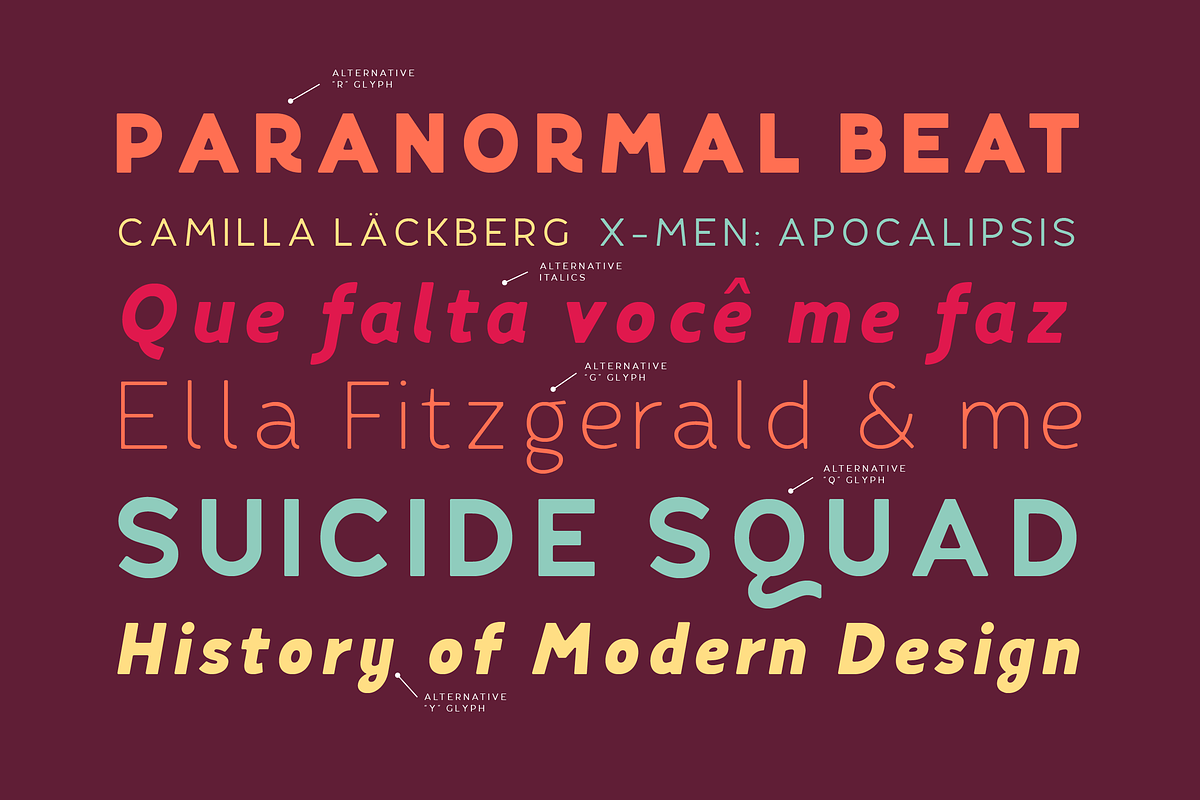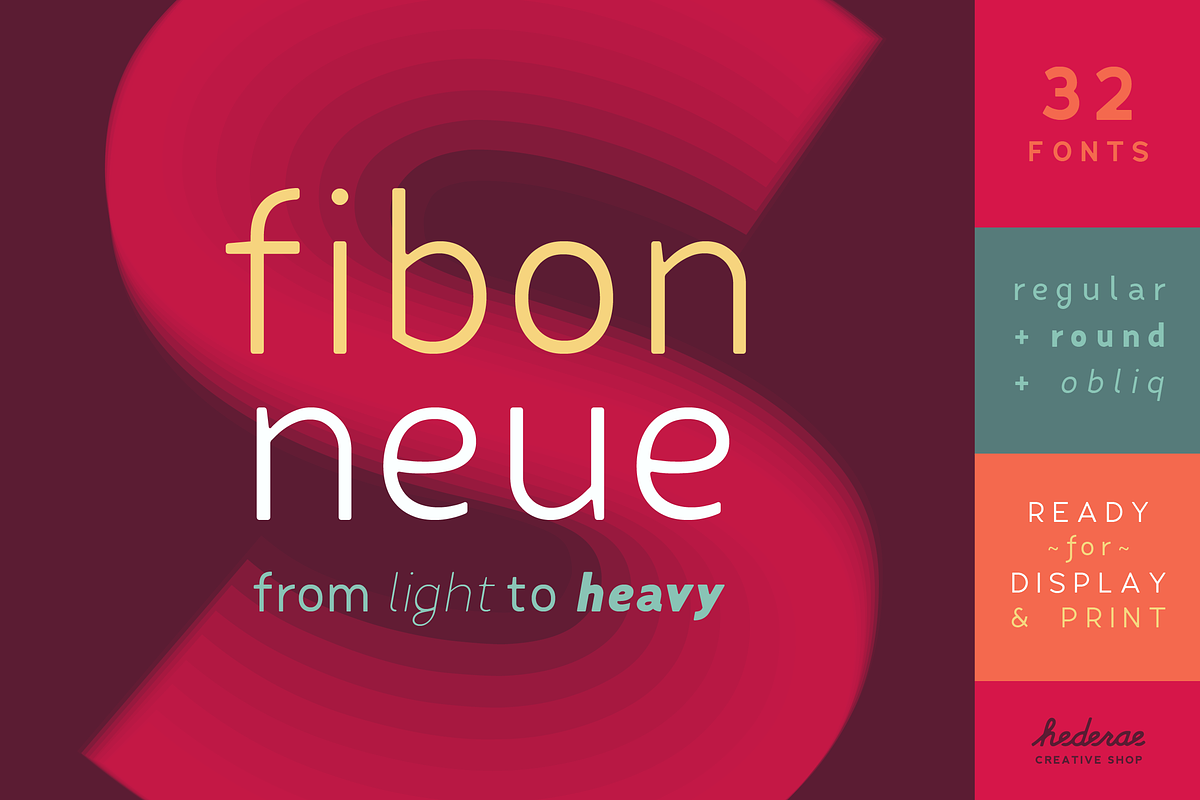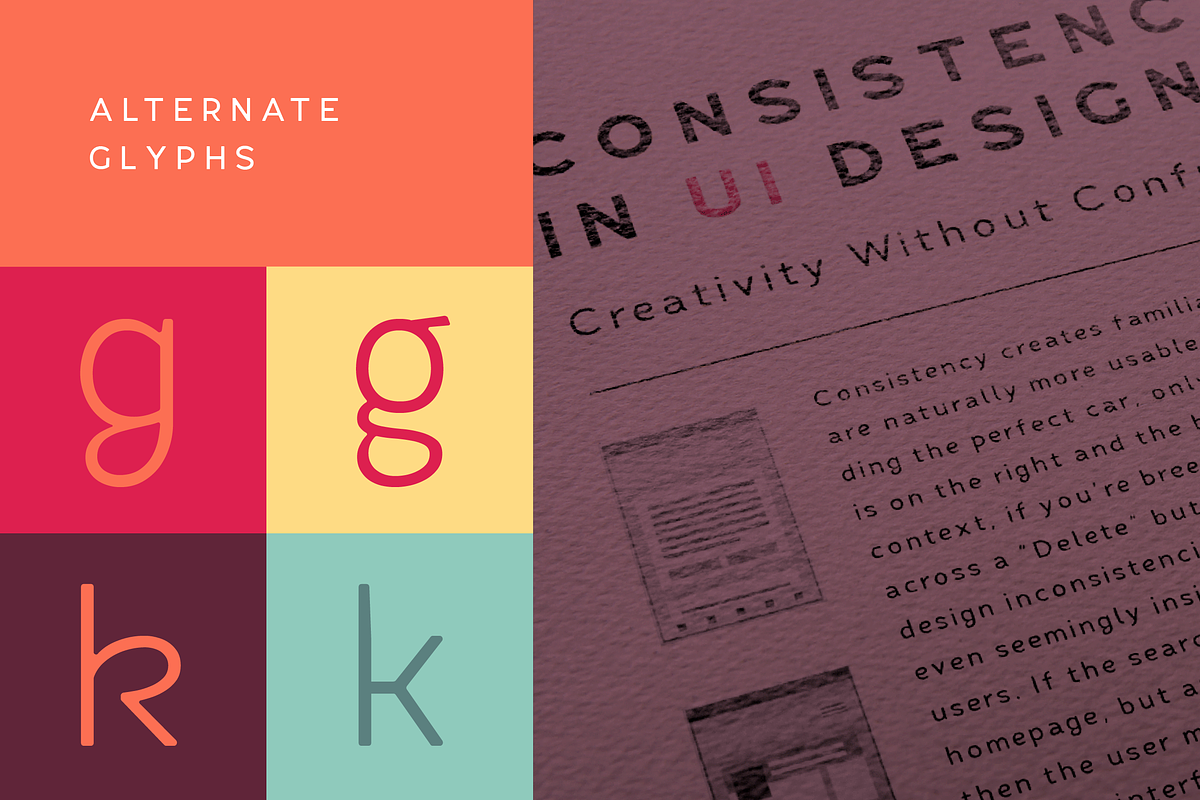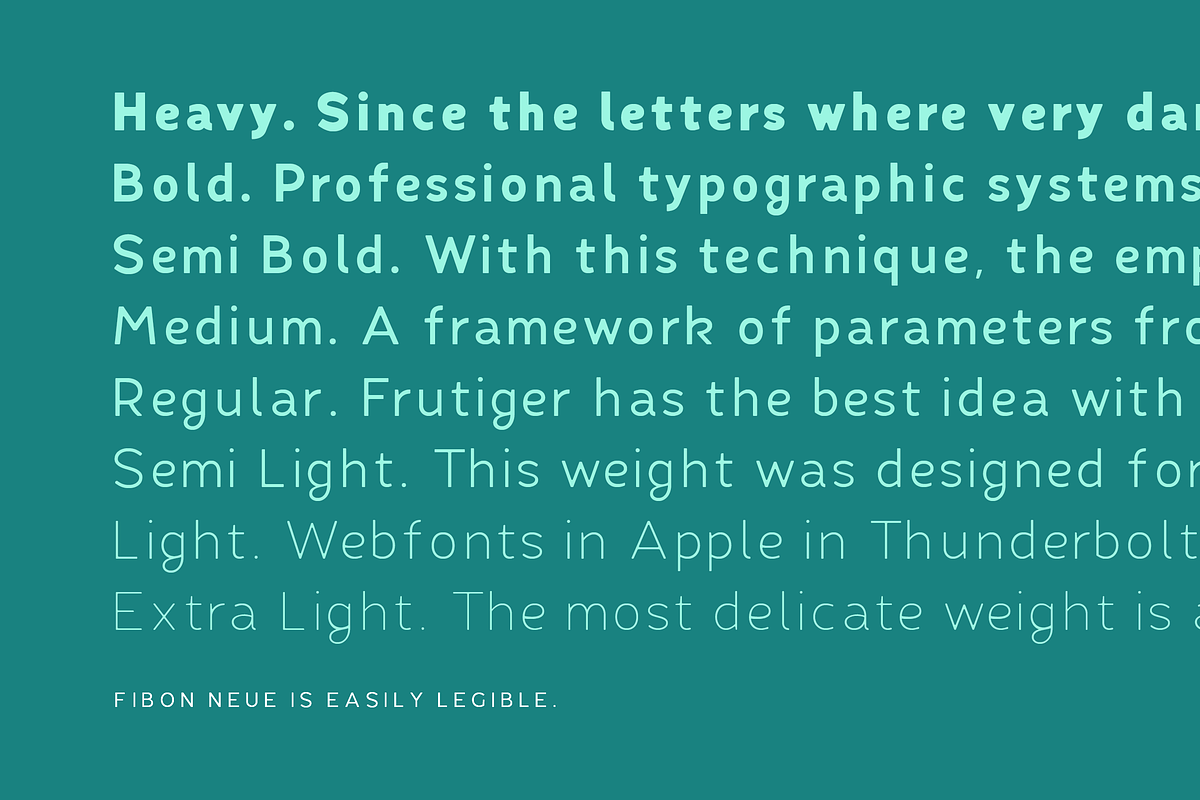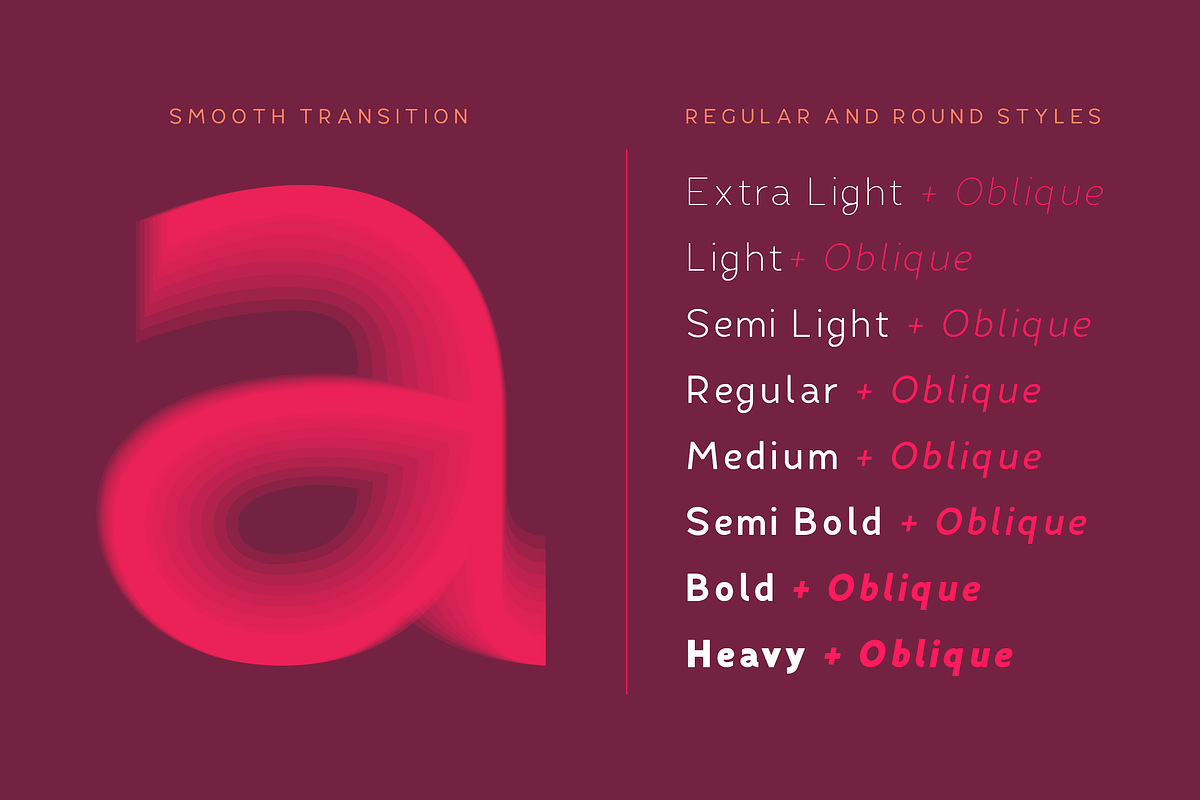
Fibon Neue Family
Fibon Neue is a modern sans-serif family of 8 weights (Regular & Round)
The Fibon Neue typeface is based on Fibon Sans, but brings an improved structure with optical compensations to look more balanced. Low contrast and smooth characters, friendly open counters make it highly legible. Great both for display and print.
Its curves make it a dynamic typeface when composing a text, ideal for those who want to add modern touch to their compositions. Fibon Neue is an excellent choice for logotypes, magazines, books and shops.